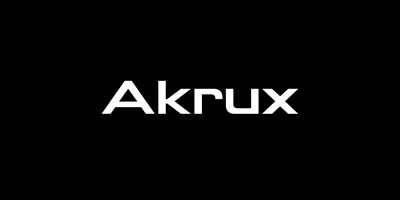
Akrux Font
Akrux Font is perfect for gaming logos, technology branding, futuristic designs, movie titles, album covers, book covers, poster designs, cyberpunk themes, sci-fi projects, digital art, esports branding, and any projects that need a bold, modern technological appearance.
What makes Akrux Font exciting is its cutting-edge geometric design that embodies the spirit of innovation and technological advancement. This striking typeface features sharp angles, precise lines, and futuristic elements that create a powerful visual impact. The font's unique character structure and contemporary styling make it perfect for brands wanting to convey strength, precision, and forward-thinking vision in their communications.
Akrux Font family includes multiple style variations featuring regular, bold, condensed, and expanded versions. The font family also contains special alternate characters, stylistic ligatures, and geometric ornaments that enhance design flexibility. Additional weights include light, medium, and black options, providing designers with comprehensive tools for creating dynamic typographic hierarchies.